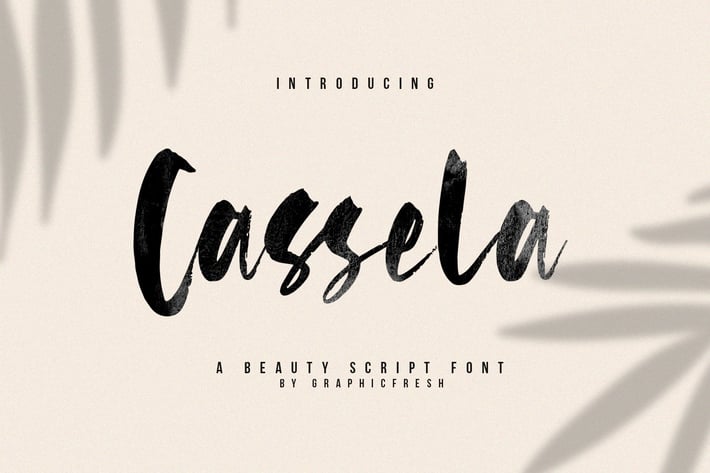
Cassela - The Beauty Script Font
Cassela - The Beauty Script Fontt, every single letter has been carefully crafted to make your text looks beautiful. it's perfect for logos, name card, magazine layouts, invitations, headers, or even large-scale artwork.
- Cassela font including upper & lowercase characters, numerals and more of symbols.
- Support International Character set with some ligature